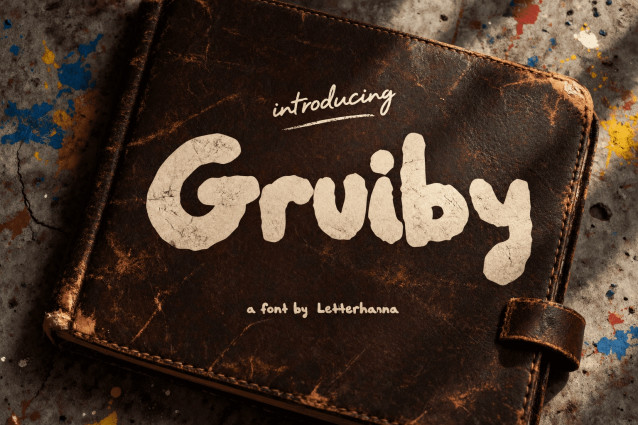
Gruiby Font
Enter Gruiby: A Handwritten Display Font That Feels Human
Gruiby breaks the pattern with thick, rounded letterforms that look hand-painted, not machine-made. As a handwritten display font, it keeps subtle imperfections that make type feel warm, crafted, and trustworthy.